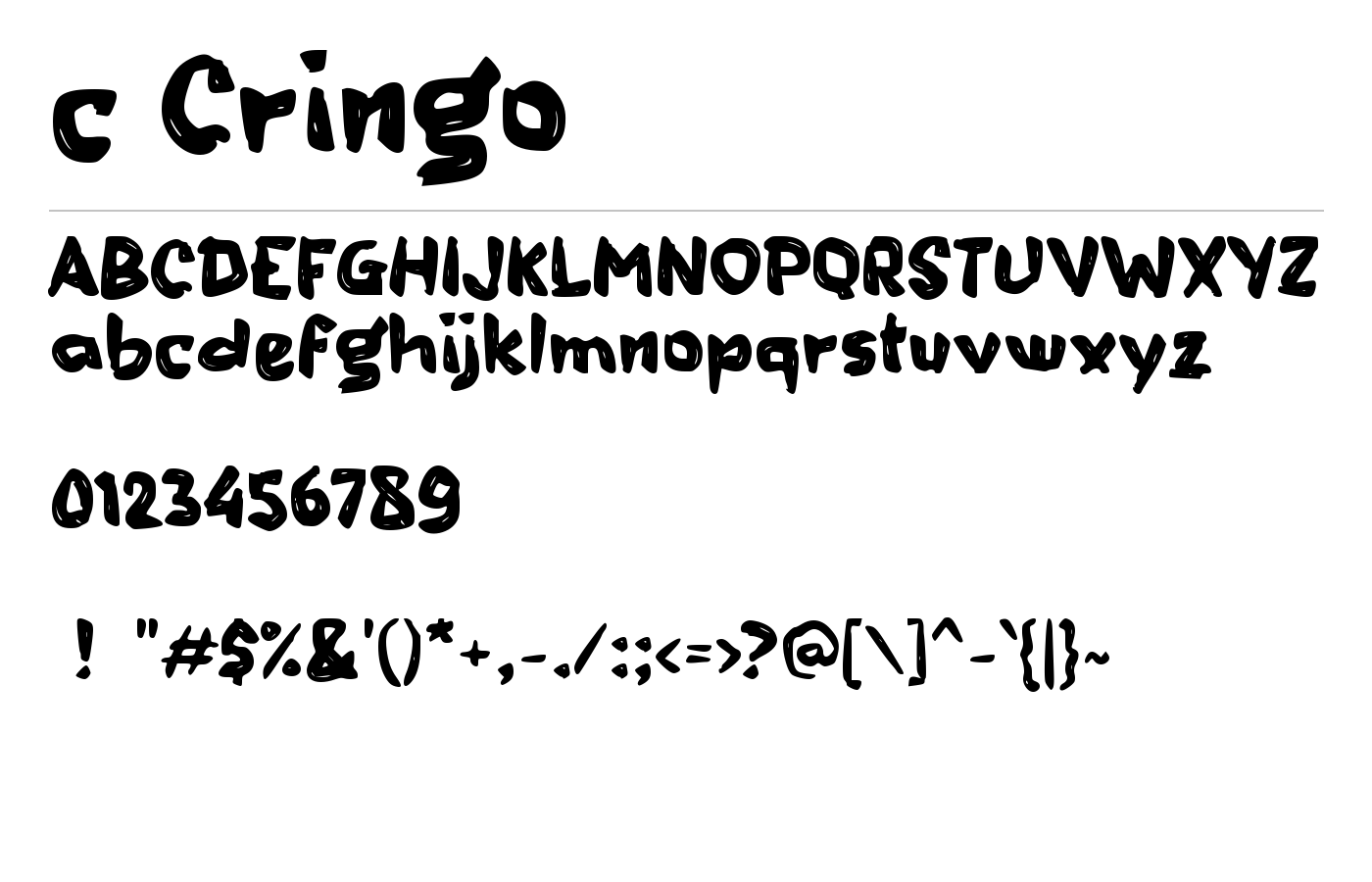
c Cringo is a bold, playful handwritten-style font with irregular, chunky letterforms that give it a casual and fun personality. Its uneven strokes and quirky shapes make it ideal for creative projects, children’s designs, and informal branding where a friendly and approachable tone is desired. This font works well for headlines, posters, and packaging that seek to stand out with a unique, handcrafted feel.
c Cringo Font